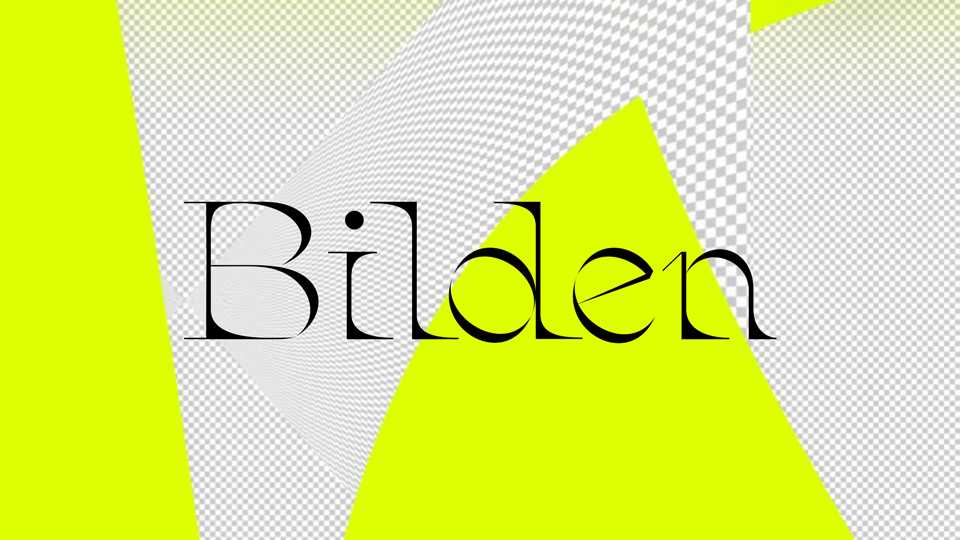
Download Bilden font, a contemporary typeface with high contrast shapes and sharp serifs. Bilden is perfect for posters and covers, editorial use and eye-catching typography composition.
Designer: Nathan Laurent